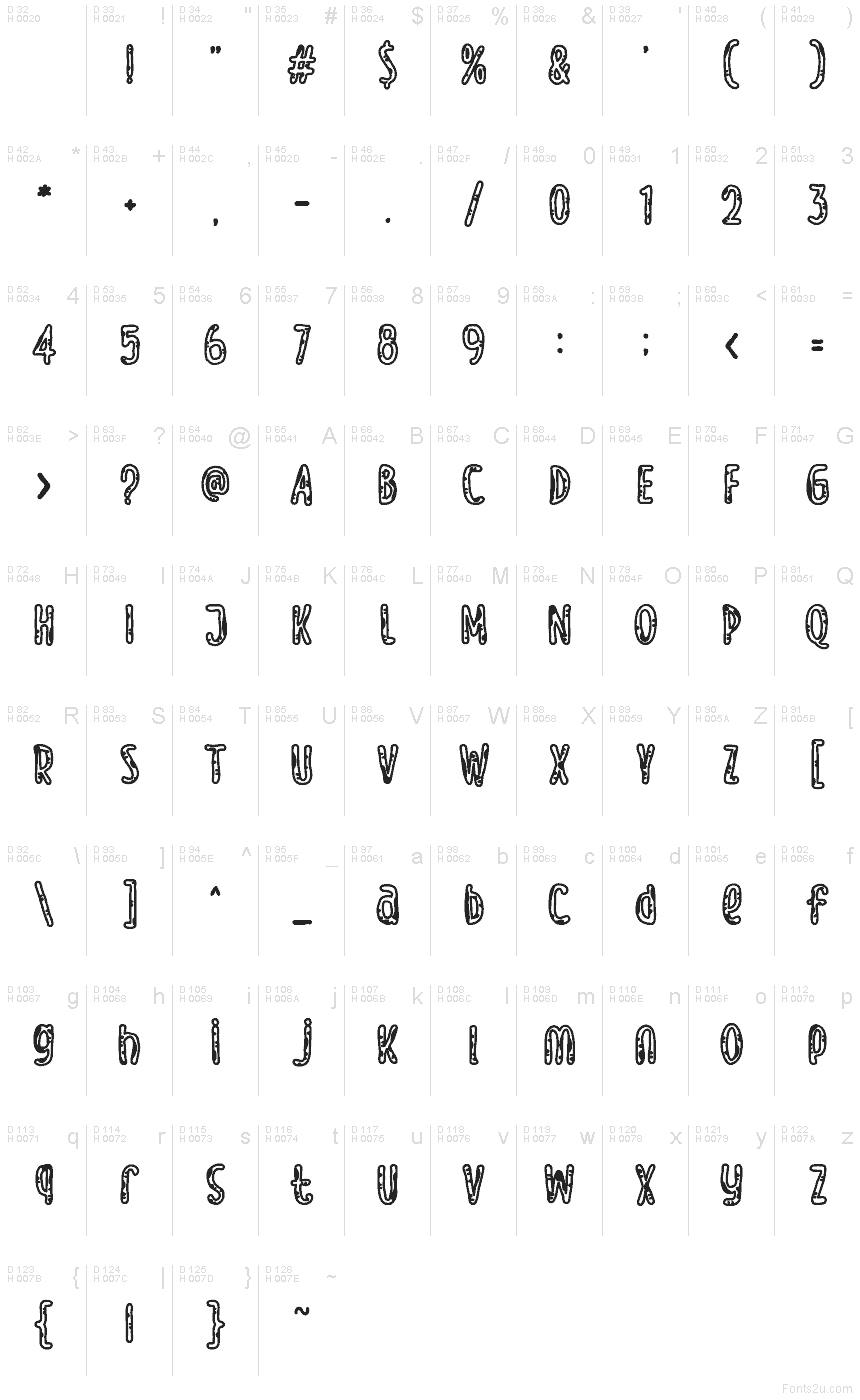
Meow Zilla Spot
Meow Zilla Spot font by PutraCetol Studio is a free decorative display font. Within the Meow Zilla family, it stands out for its inky, animal‑spot texture nestled inside rounded, bubble‑thick outlines. The letters wobble with a friendly bounce and generous spacing, creating a lively rhythm that reads loud and playful without feeling chaotic.
Using Meow Zilla Spot, headlines snap with a wild-yet-cute energy that shines on kids’ book covers, pet shop branding, jungle or zoo posters, party invitations, toy packaging, and YouTube thumbnails. This free font rewards big sizes where the spot detailing can breathe. Pair it with a clean, rounded sans for body copy to let the spotted forms do the roaring.